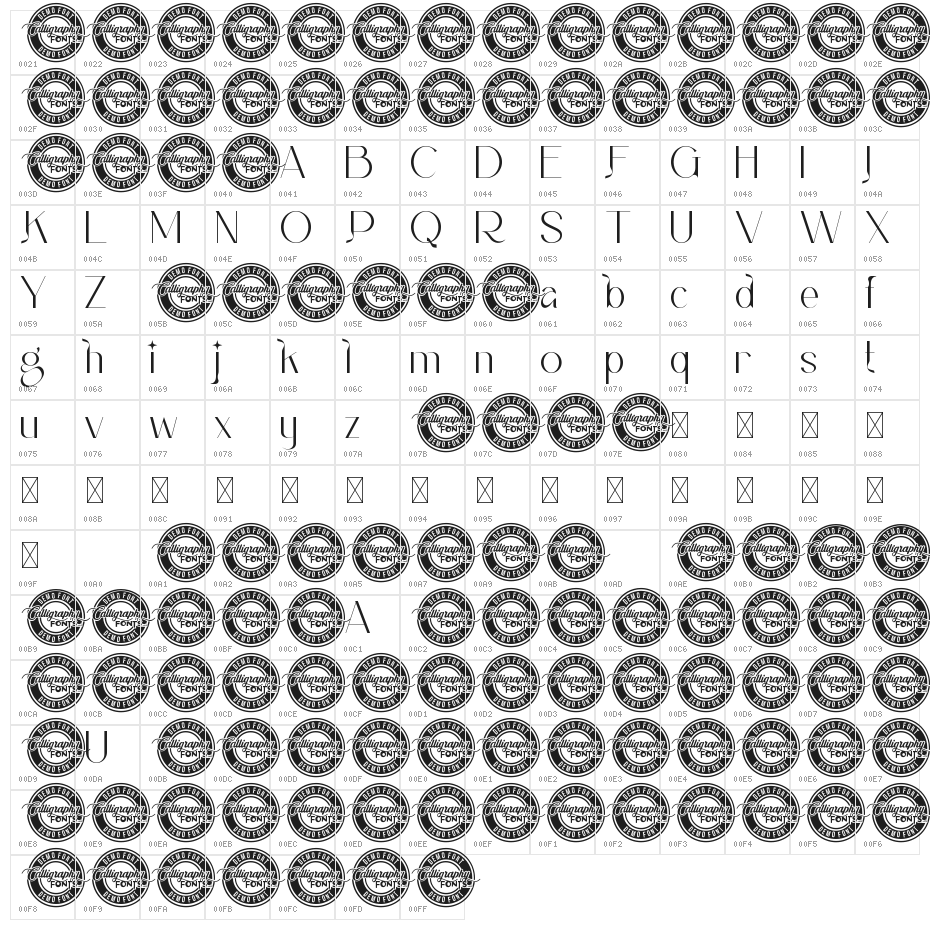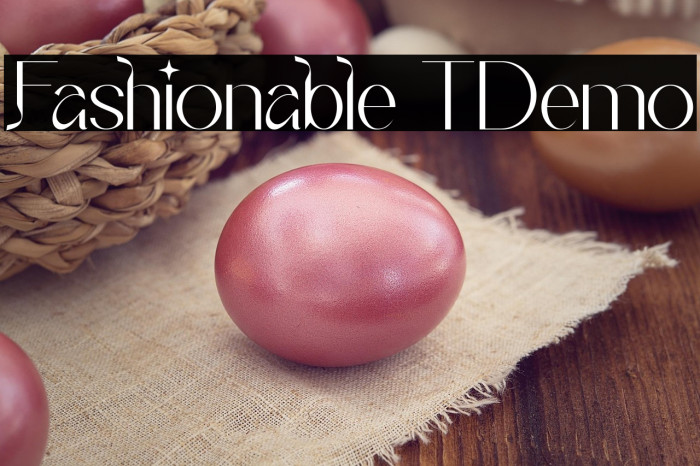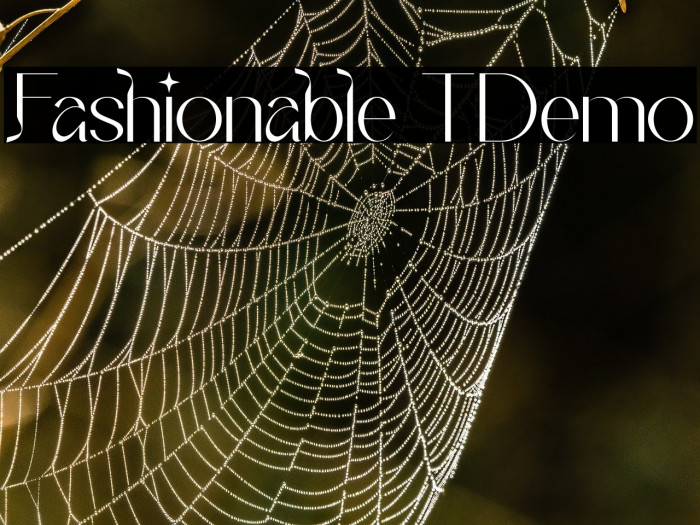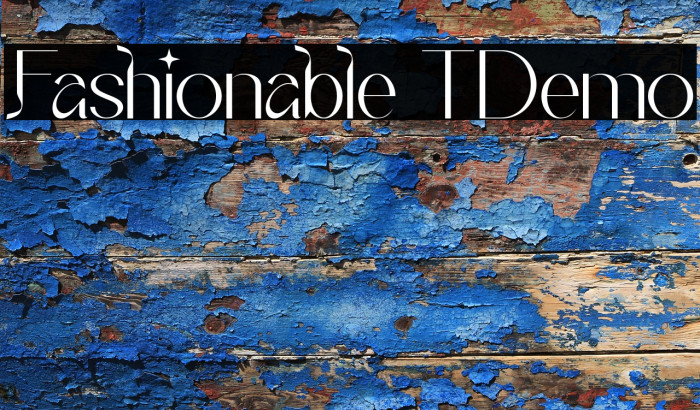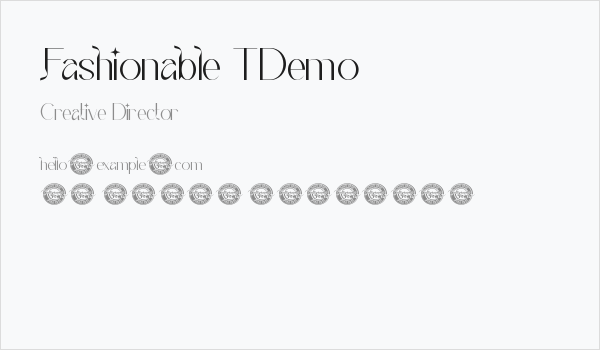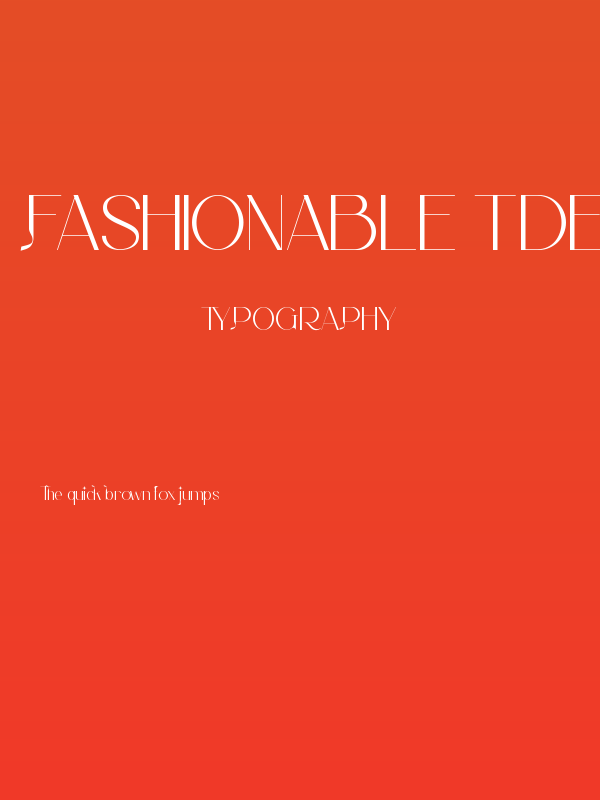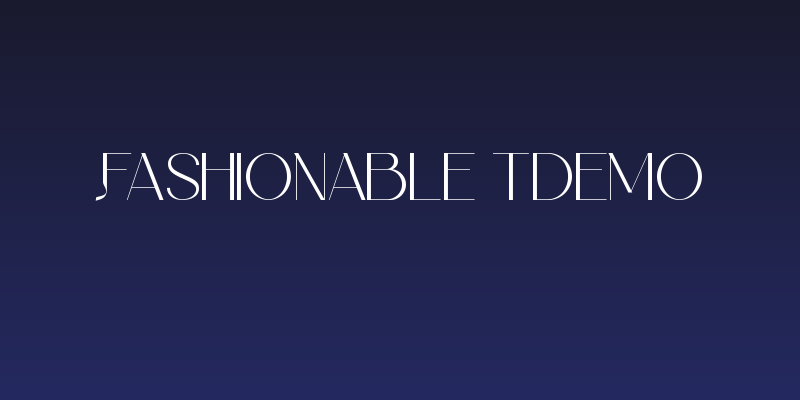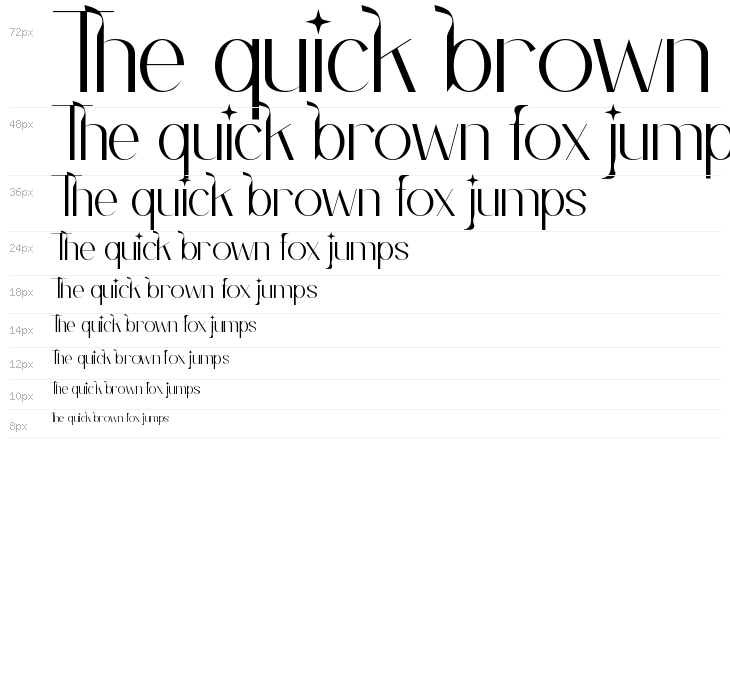
Fashionable T Demo Font
Fashionable T Demo Description
This font exhibits a modern and stylish design, characterized by its elegant and elongated letterforms. The uppercase letters feature a unique blend of thin and thick strokes, creating a high contrast that adds a touch of sophistication. The lowercase letters maintain a similar aesthetic, with some characters displaying distinctive flourishes and curves that enhance its decorative appeal. The overall design is sleek and contemporary, making it suitable for fashion-forward and creative projects. The spacing between characters is normal, allowing for readability while maintaining its artistic flair.
| Proposed Projects | Ideal for fashion branding, luxury product packaging, magazine headlines, and creative advertising campaigns. |